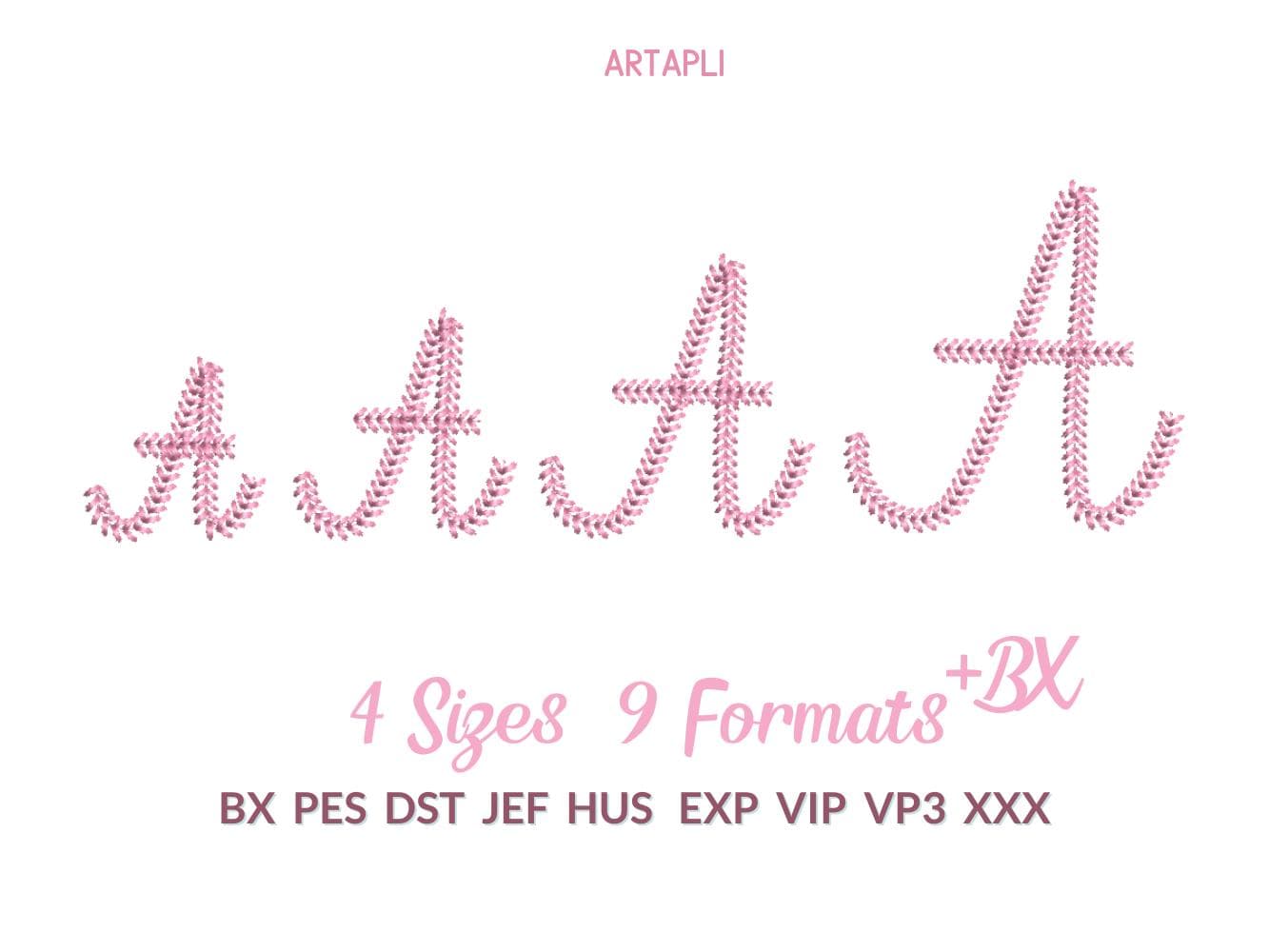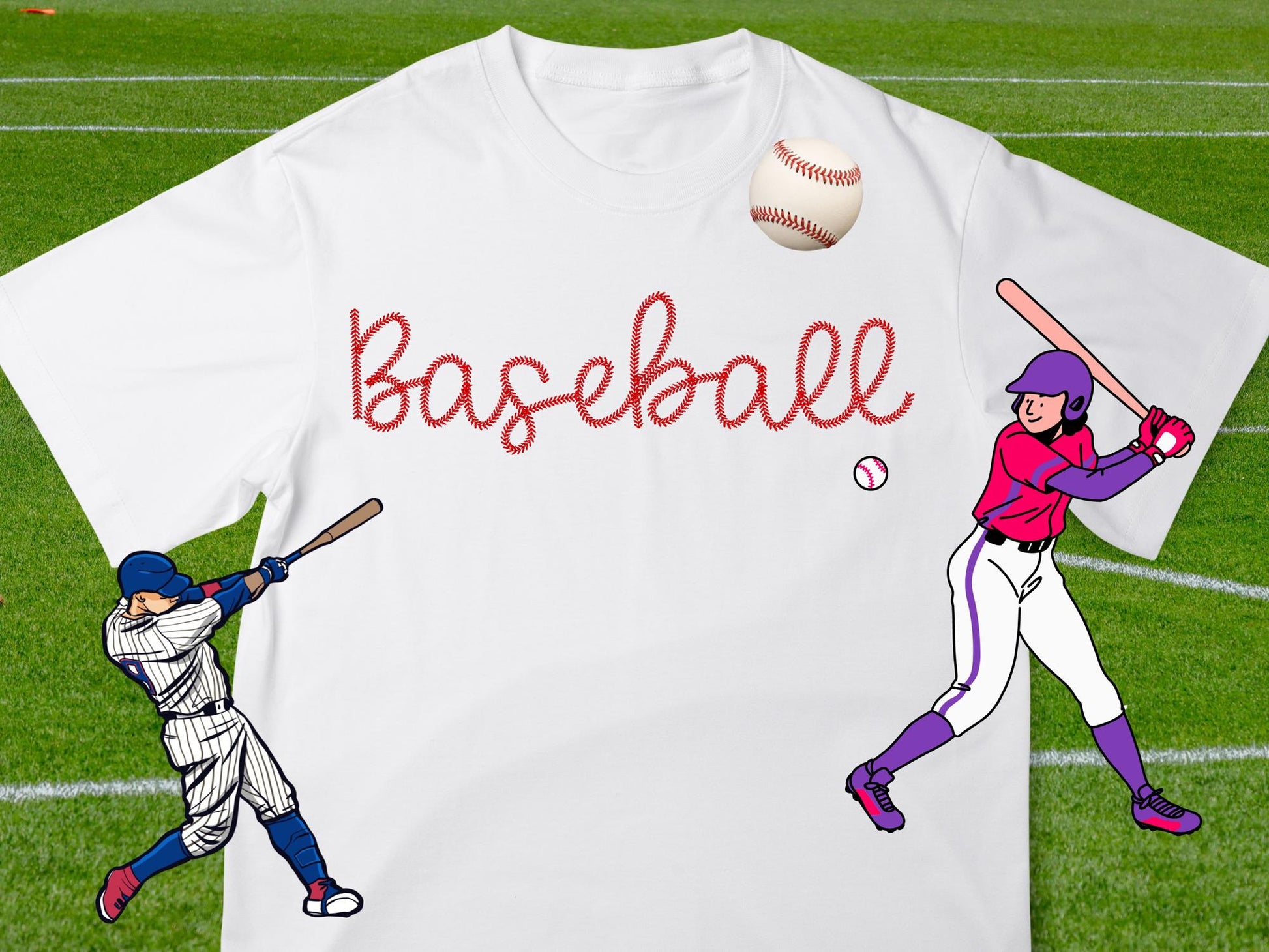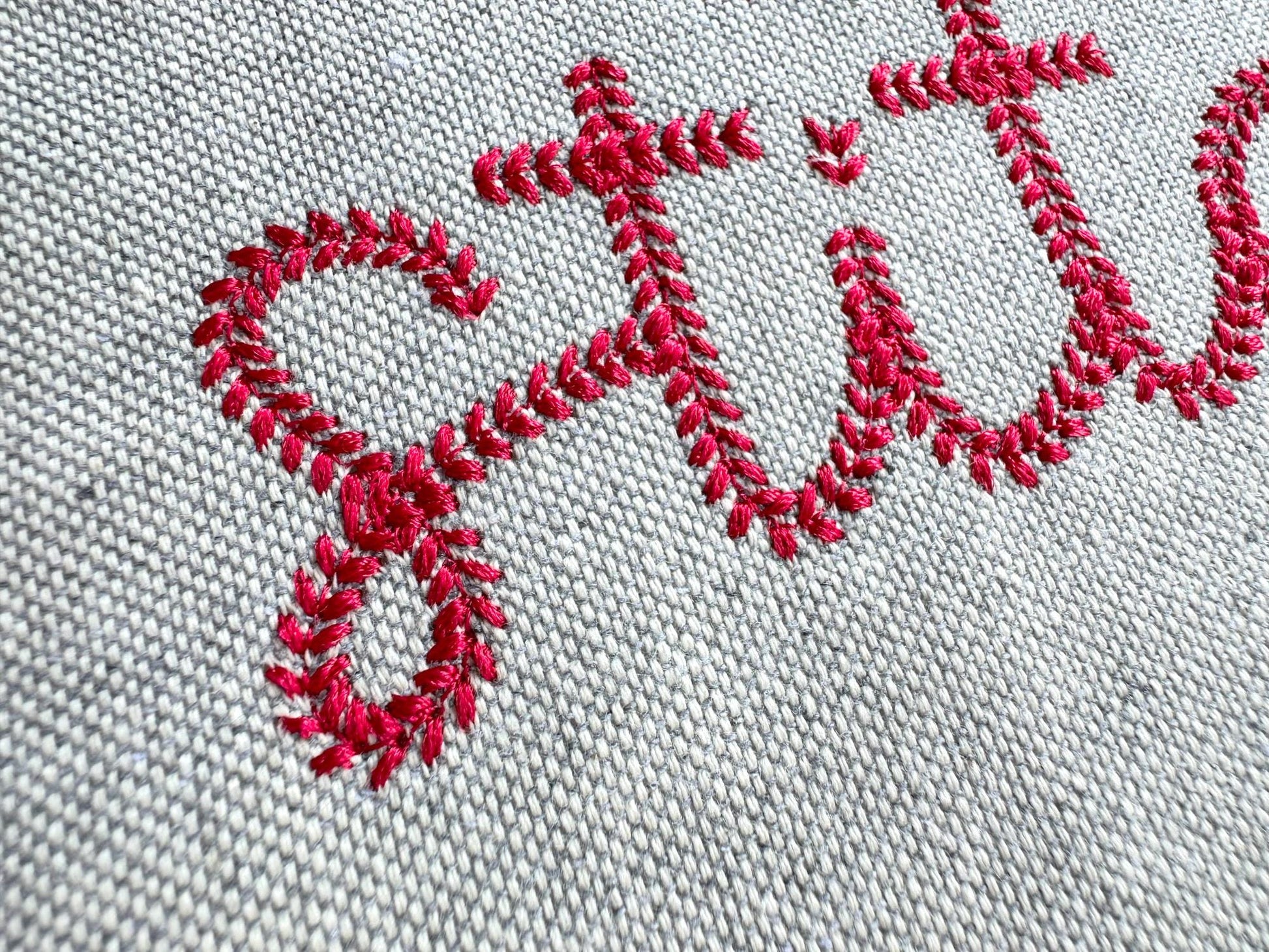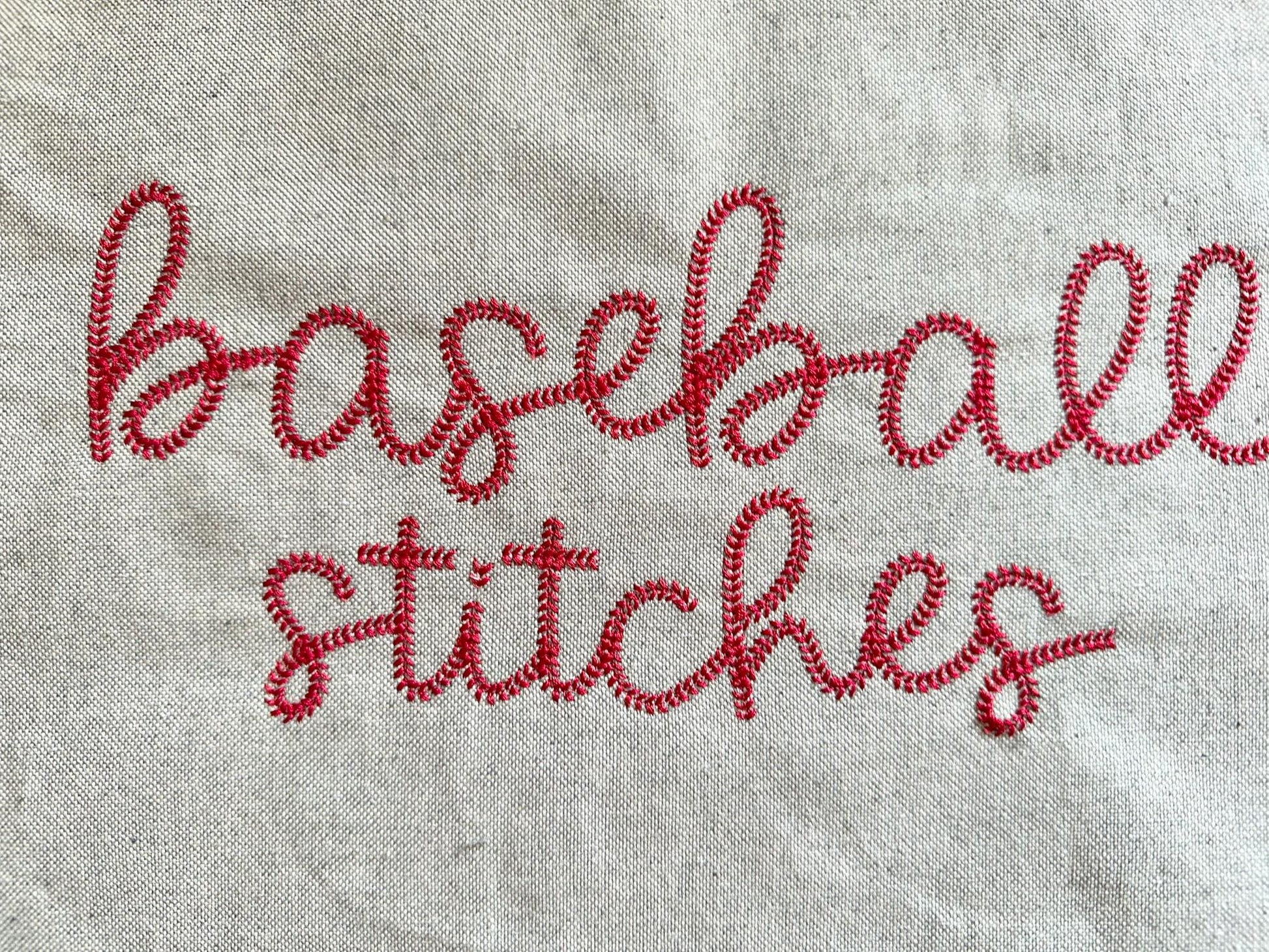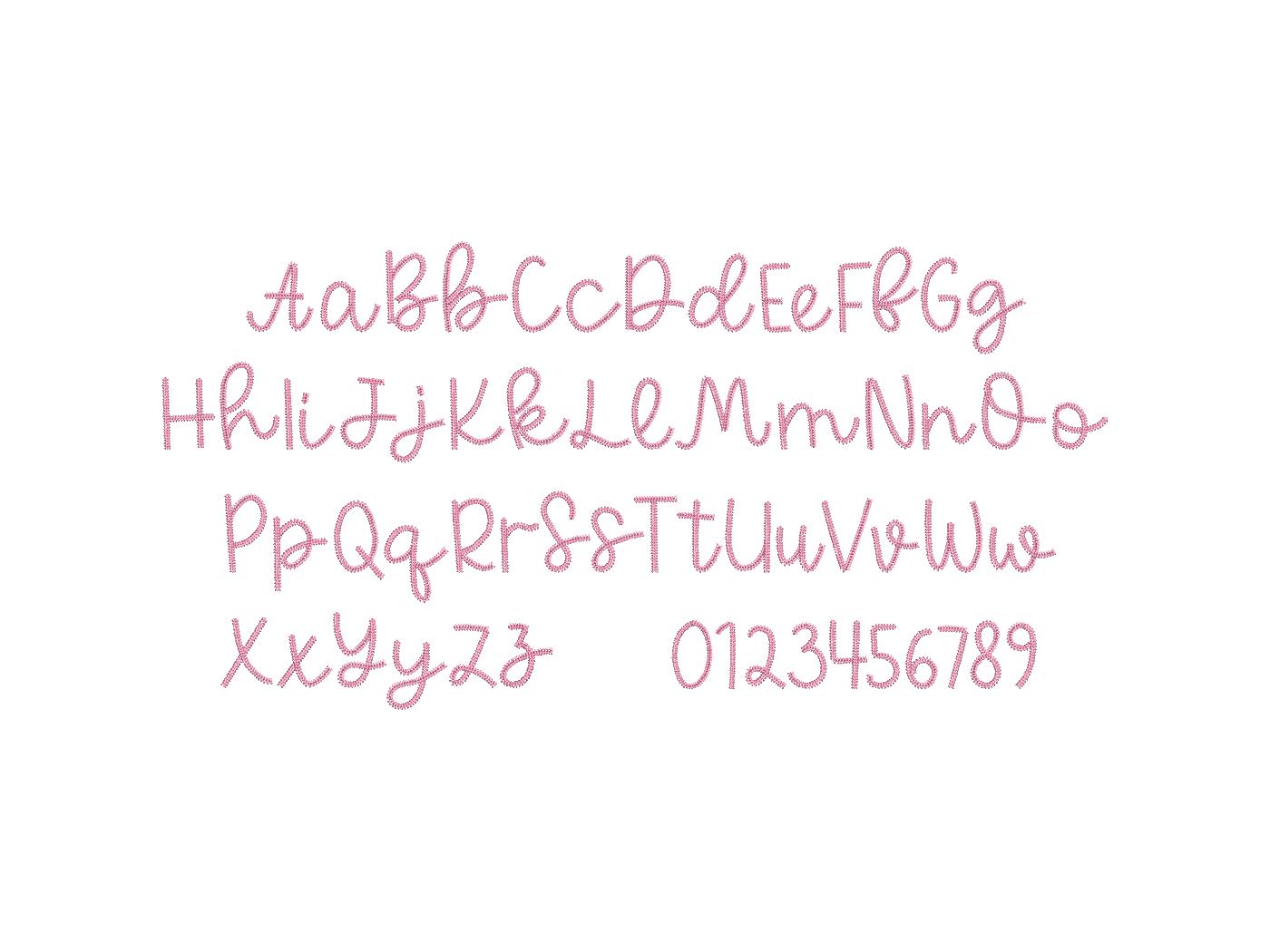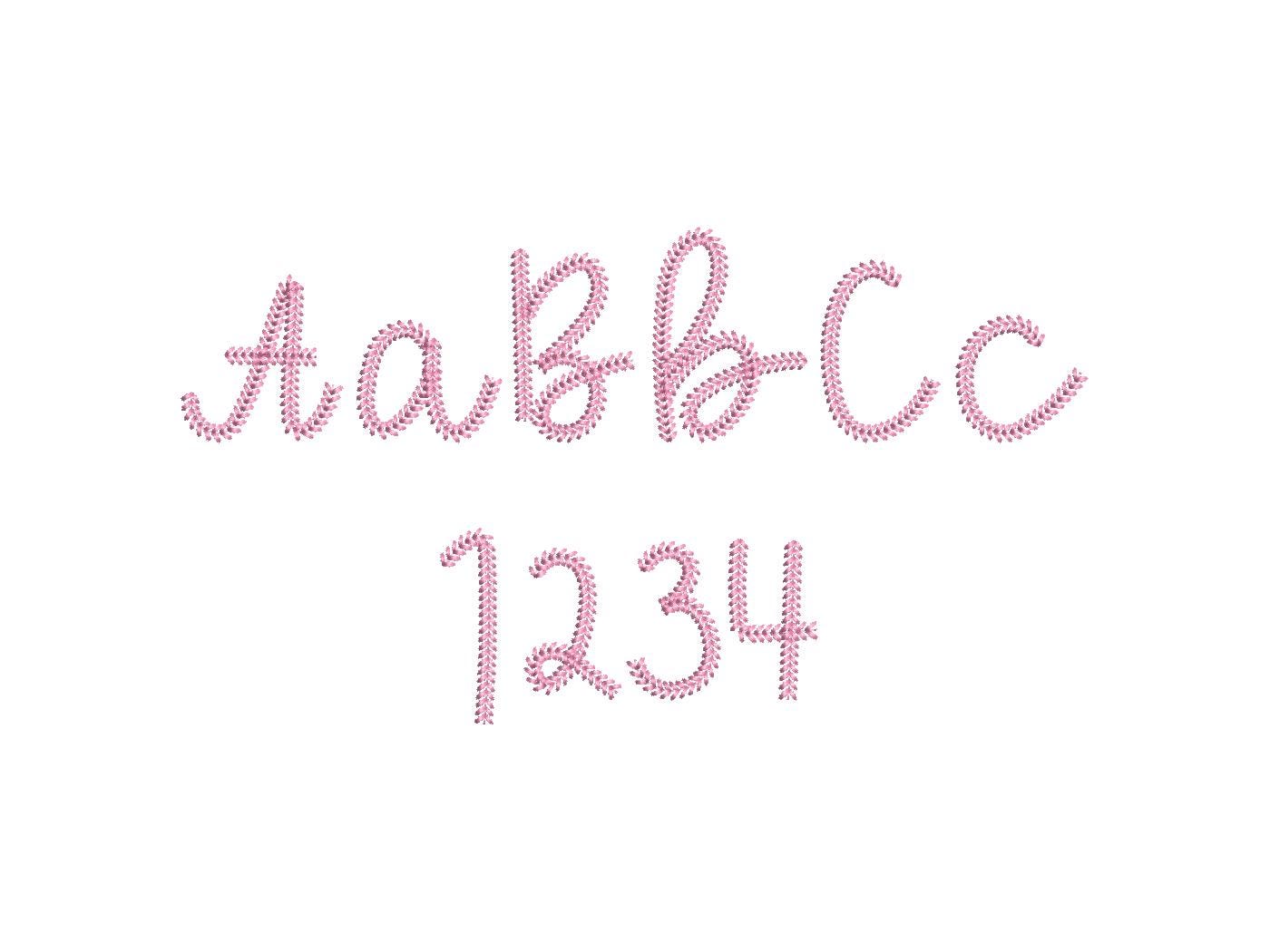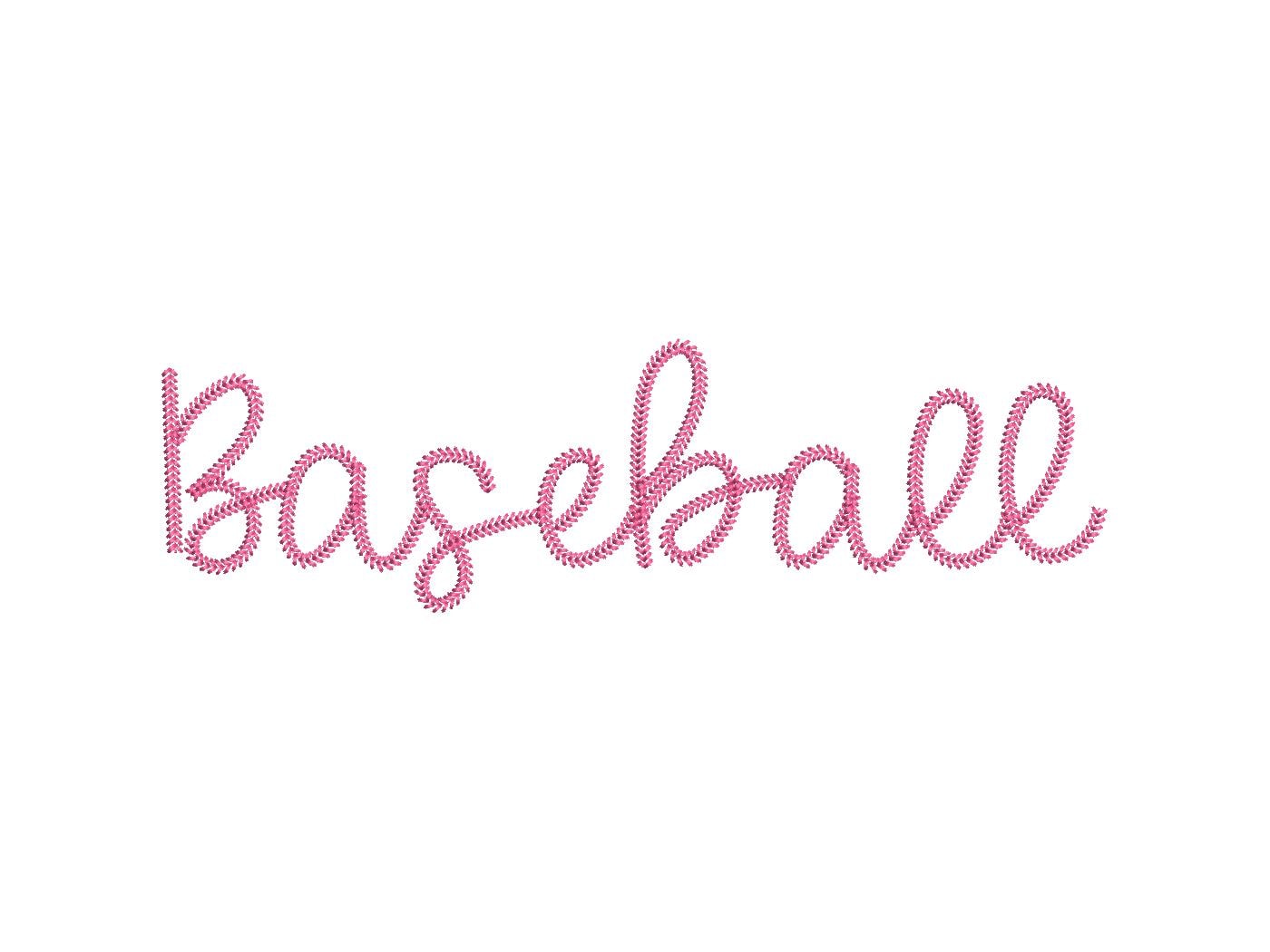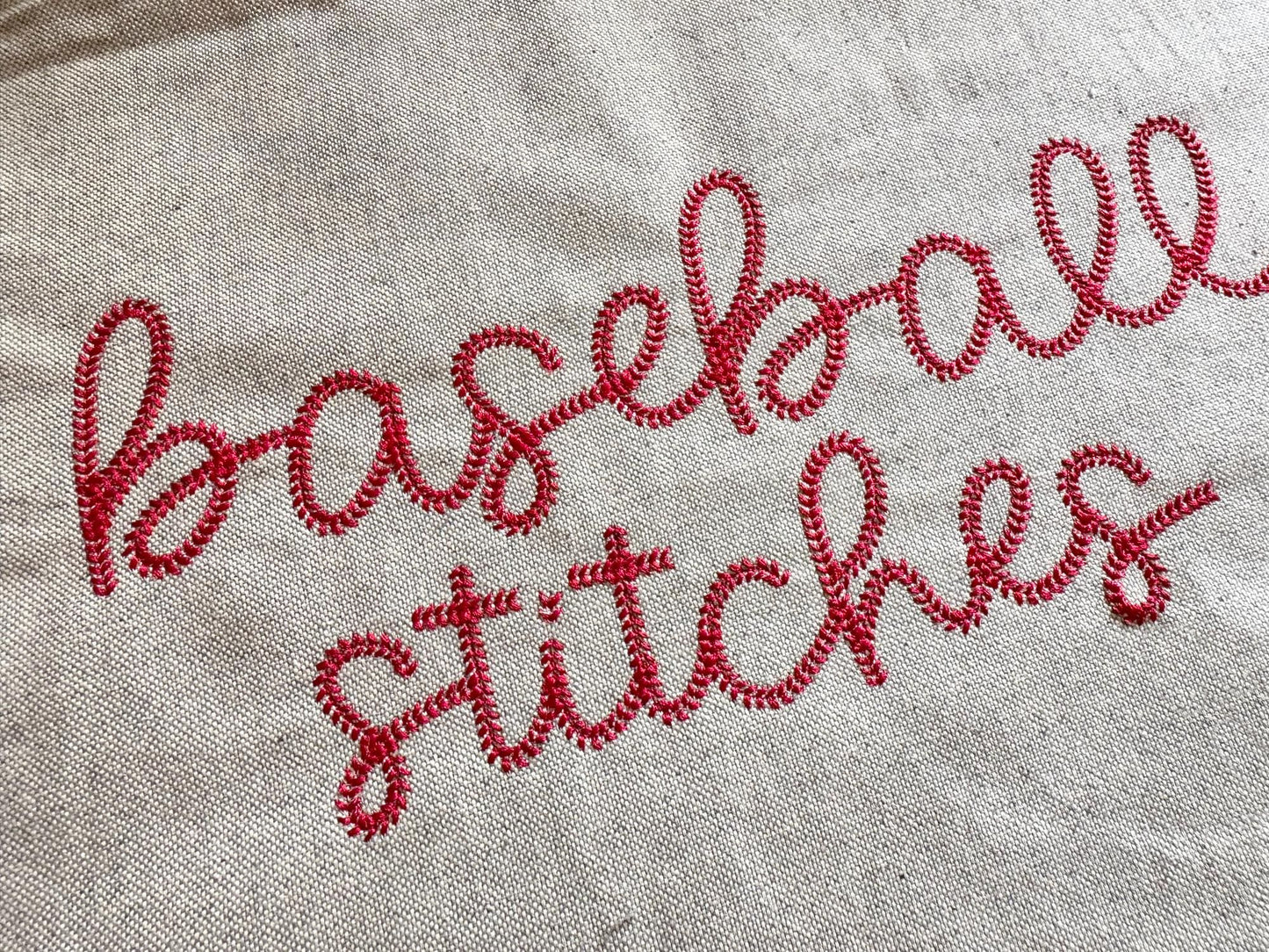
great product...stitched great! highly recommend
Love this font. Looks great on my little fella’s pillow.
Beautiful stitches! High quality and stitched out beautifully!
So cool that these include a website to edit the font, so easy to use for a beginner
This font stitched out beautifully.
Stitches great, letters connect easily to eliminate unnecessary jump stitches
Love how this stitched out. I have never been unsatisfied with anything from Artapli!!
Stitched beautifully! My favorite baseball font.
Stiching looked beautiful! Made it easy for me as a beginner
Very nice stitchout on the alphabet!!
Stitched out so cute and sweet
The letters stitch over themselves a lot, making some lines thicker than others.
This design stitched out so perfectly ! It’s so cute !
great sew out looks great
Of course another one of my favorite fonts! Artapli makes the best ones!
this stitches so clean and perfect!
Sehr schöne Schrift, sehr groß.
Stitched out perfectly and looks just like the pictures.
Such a fun design! Looking forward to stitching it out.
J'adore le style et se brode parfaitement.
I love the way it looks.
The design stitched out great!!
Great designs. stitched out beautifully. would definitely recommend
stitching came out beautifully. I made a few sample sweatshirts and got a lot of compliments on this style. I typed it in the free embrillance software. I would buy again.
This worked well and was a big hit with the boys who got the item with it on.
Super cute and easy to add to my Design Shop 12 software. Stitches wonderfully and I had no idea about the save letter feature in Design Shop until I ordered this font from your store, so thank you for that! Love learning new things like this!
This pattern stitched out great on my designer diamond royale!
This font is so precious. My daughter is pregnant with a little boy and her husband is a huge Cubs fan. So cute to print with this stitch on a burp cloth.
Stitches out perfectly! Easy to resize too
I loved the size of the Baseball!stitched out nice
One of the best stitched fonts I’ve used
Design stitched out really good